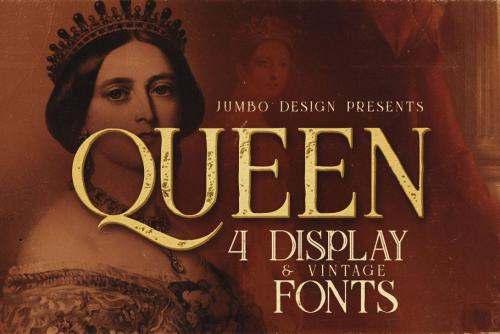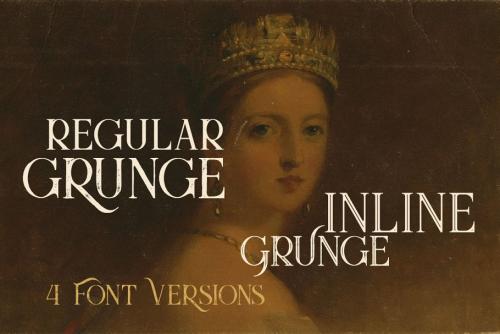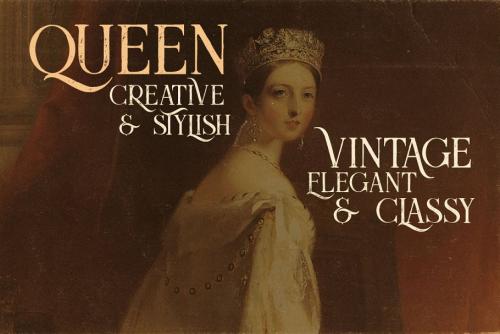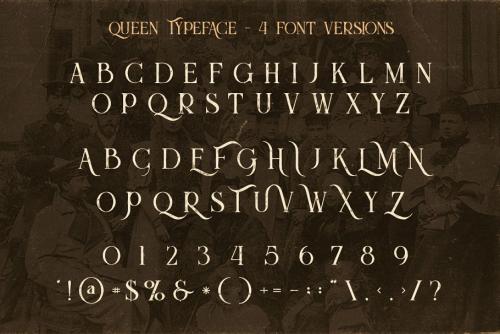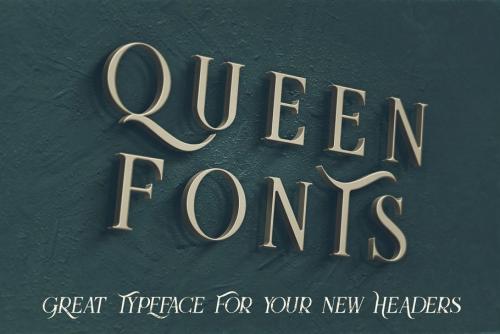
Queen Display Font
Queen Display Font was designed and shares by JumboDesign. Unique vintage ornamental style custom serif font with 4 styles: regular and grunge, inline and inline grunge. Queen is great for display, branding, logos, packaging, titles, and more.